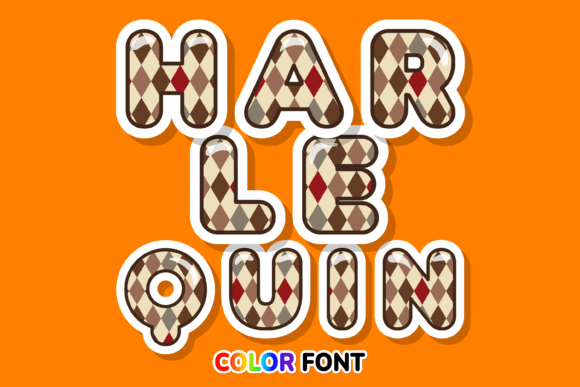
Embellish your designs with the enchanting Harlequin Font, a vibrant symphony of colors that will ignite your creativity! Immerse yourself in a world of boundless possibilities, where your imagination takes center stage. With Harlequin, every letter dances with hues and shades, transforming ordinary words into captivating masterpieces.
Unleash your inner artist and let Harlequin guide you on a journey of self-expression. Whether you're designing custom apparel, creating whimsical DIY crafts, or simply adding a touch of magic to your digital creations, Harlequin will elevate your work to new heights. Its playful spirit and captivating colors will leave a lasting impression, captivating the hearts of all who behold it.
Harlequin's versatility knows no bounds. It effortlessly adapts to any project, from playful invitations and vibrant posters to eye-catching social media graphics. Its unique charm adds a touch of whimsy to logos, branding materials, and website designs, making them stand out from the crowd.
With Harlequin, you'll never be short of inspiration. Its vibrant palette ignites the imagination, inspiring you to create designs that burst with life and personality. Say goodbye to dull and monotonous fonts and embrace the joy of color with Harlequin.